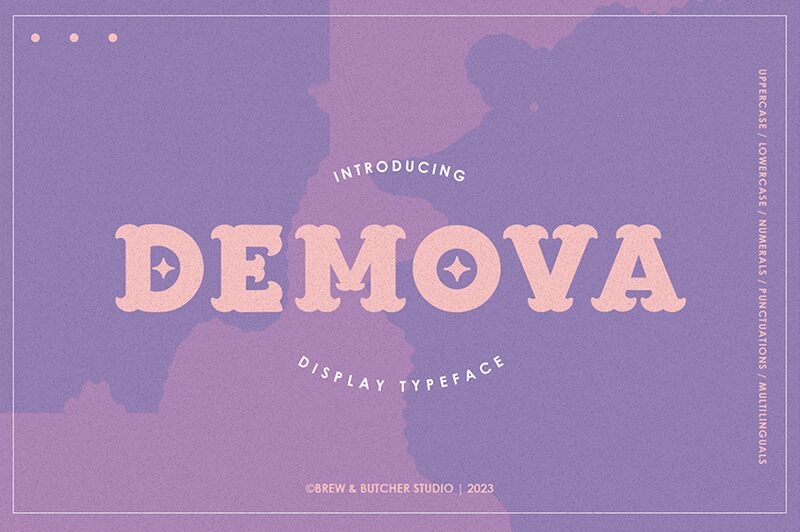
Demova
The only things Demova can’t offer you are ice cream and good music, but since you probably already have the two, the font can only make your day better. Demova is a vintage bold display font created and shared for free by Brew and Butcher Studio. This vintage font, with its decorative features including rough strokes and wavy top elements, is perfect for greeting cards, t-shirts, signs, and posters. You can use Demova for branding designs for shops that deal with antiques or retro items or to present vintage and modern quotes.